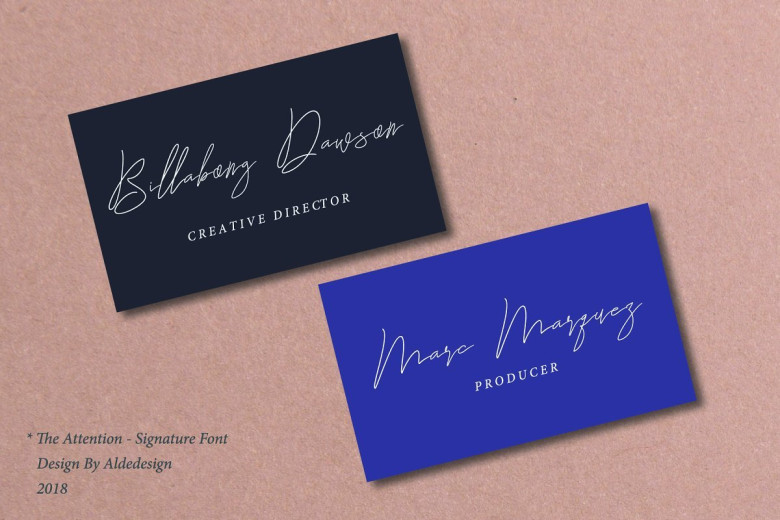
The Attention Signature Font
This is another lovely modern script, signature and combination font, which is combining the style of classic signature with an modern style. Introducing The Attention Font. The Attention designed and shared by Aldedesign. The Attention is a stylish unique signature font and easy to remember. This font is easy to use, the basis if this unique font is it’s simplicity. It’s great for unique branding, photo overlays, watermark, business card, invitations, etc.